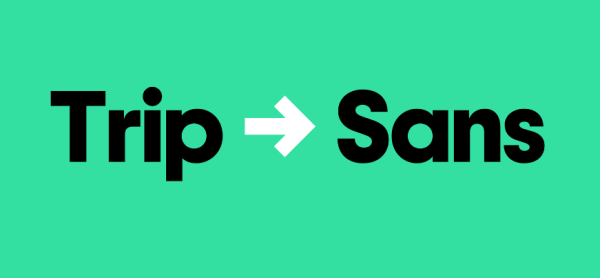
Trip Sans Font
Trip Sans Font, is a sans serif  stunning when combined or separately. This sans serif font style is legible and stunningly designed.
In close collaboration with the bright minds at Mother New York, Colophon developed a four-weight, five-style type family for the globally-minded, US-based travel company Tripadvisor.